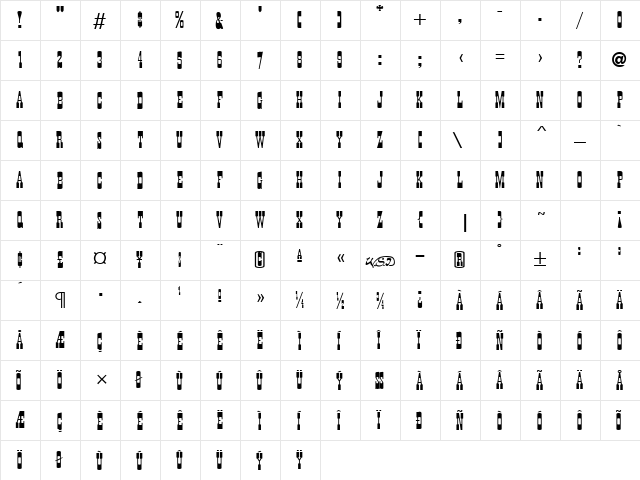
WantedPoster normal
Design Context for WantedPoster Typeface
WantedPoster is a composed and adaptable typeface that performs quietly and consistently across a wide range of design contexts.